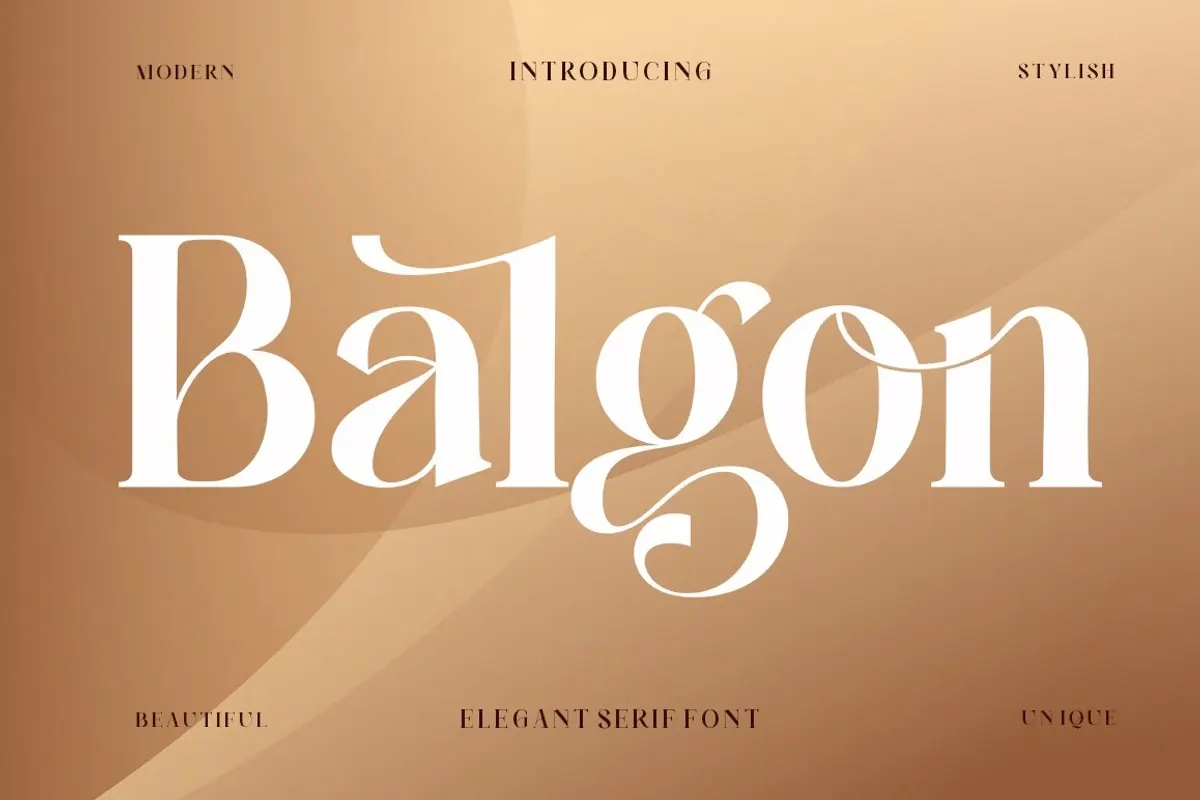
Balgon Serif Font Free Download is an elegant and modern serif typeface with clean lines and balanced proportions. Its refined structure and subtle details make it perfect for high-end branding, editorial design, logos, invitations, and other professional projects.
The sleek and contemporary look of Balgon makes it versatile for both digital and print designs, offering a polished, sophisticated appearance that works well for luxury brands, websites, magazines, and more. Whether you're designing for a modern fashion brand or creating elegant print materials, Balgon brings timeless beauty and strength to your typography.